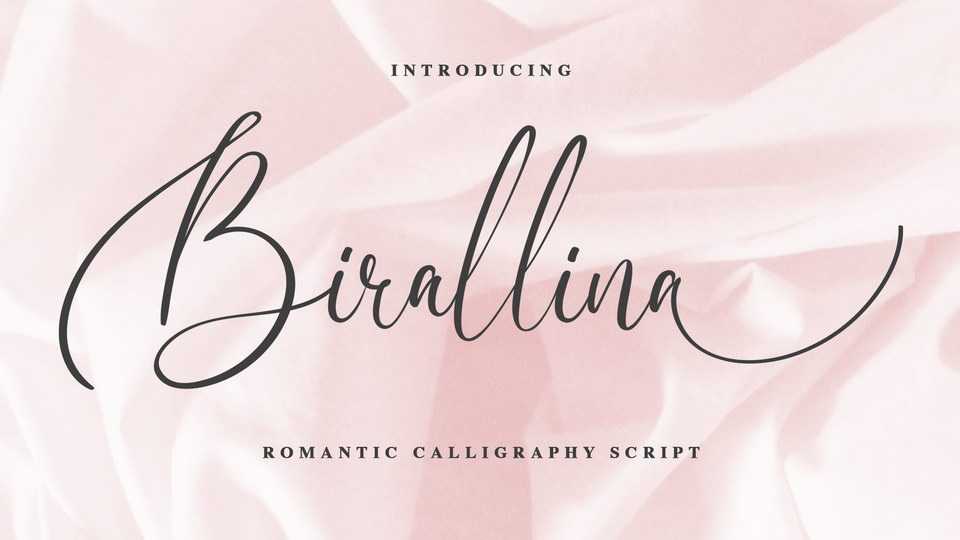
Birallina Script Font › Fontesk – Download Grátis
Download Birallina font, an elegant and lovely calligraphy script with beautiful alternates. Birallina script good for signature logo, wedding invitation, romantic quote, logotype, poster, social media kit, book cover, tshirt design, packaging and any more.